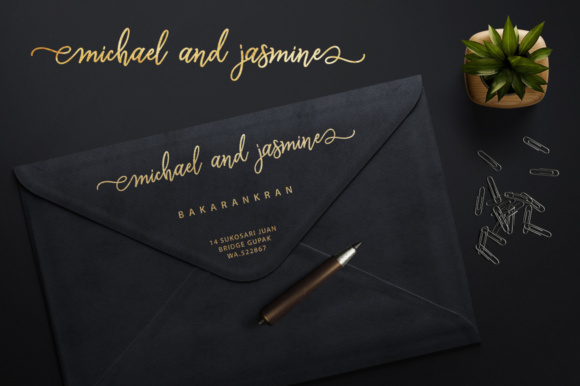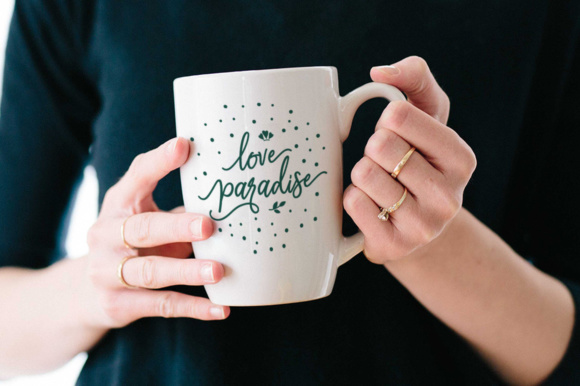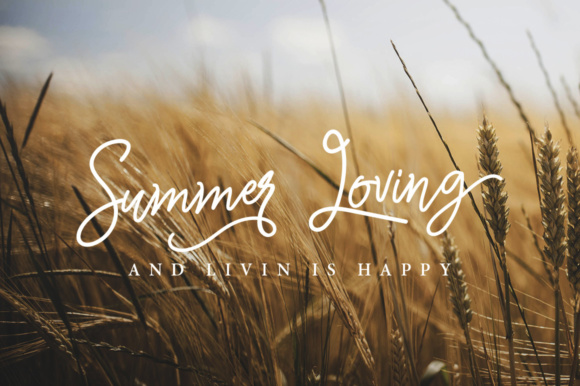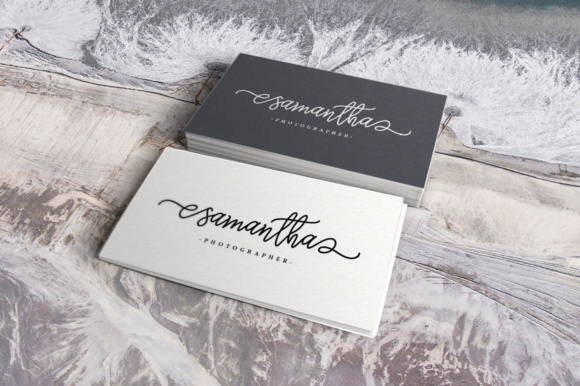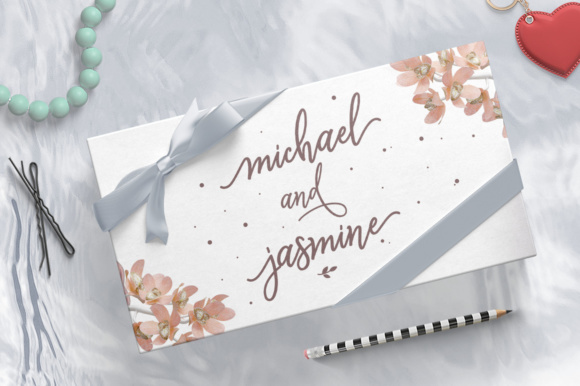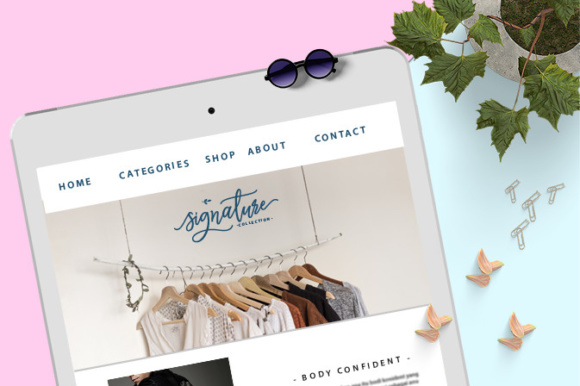
Monalisa Font
About Monalisa Font
Monalisa Script is modern script typeface. Monalisa can be used for wedding cards, logotypes, website headers, fashion designs and much more!